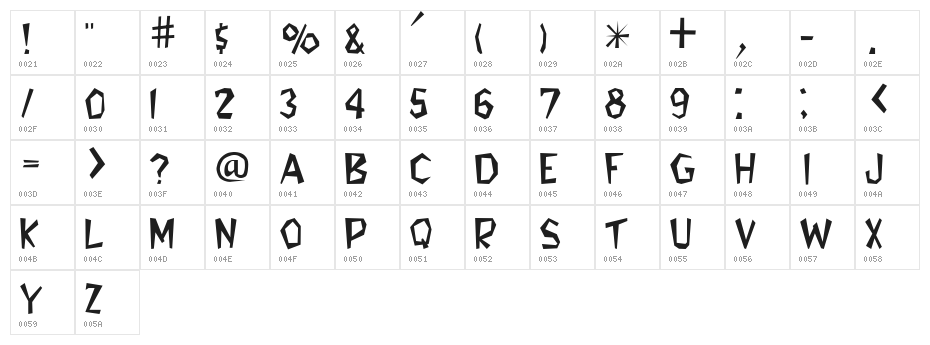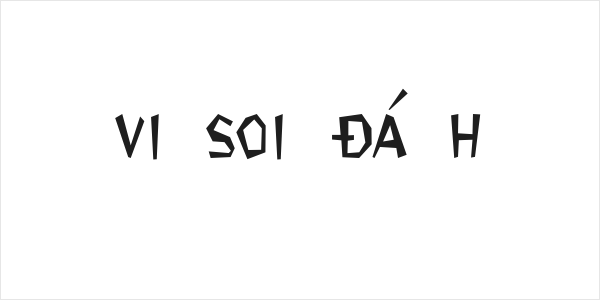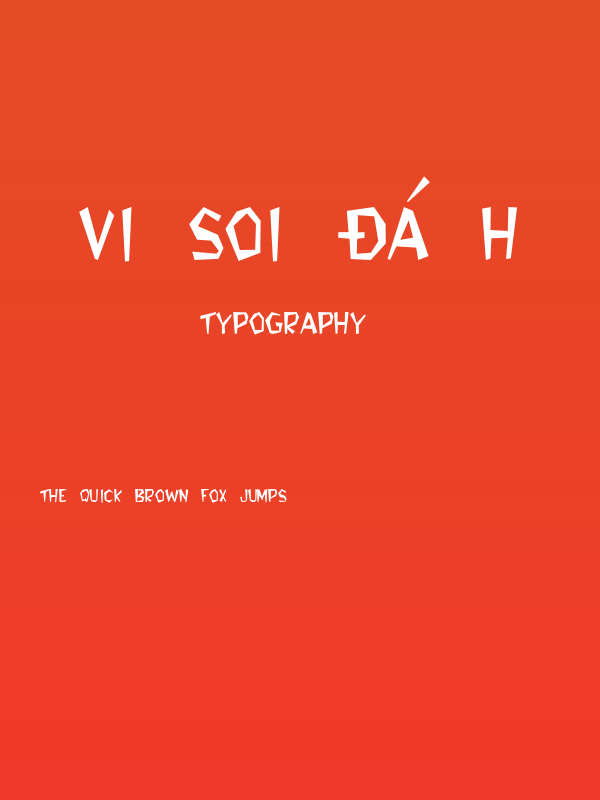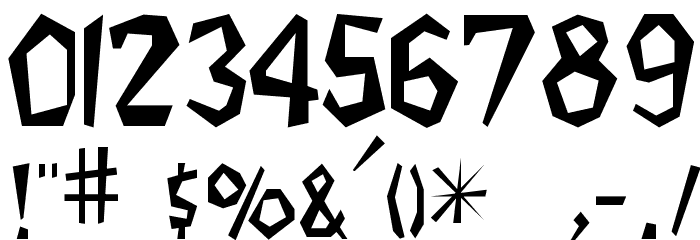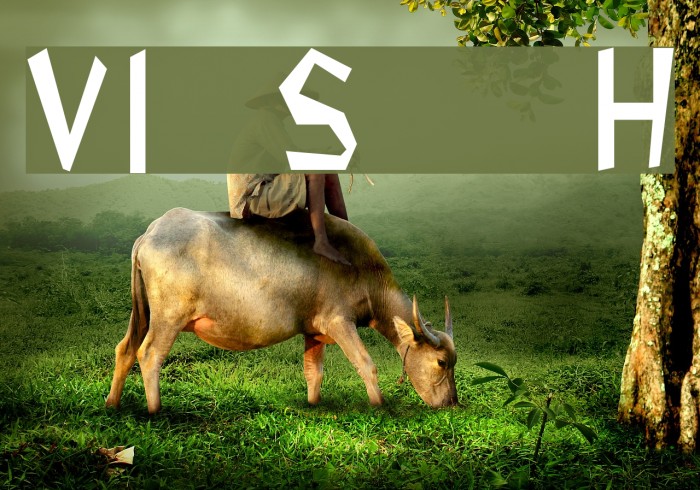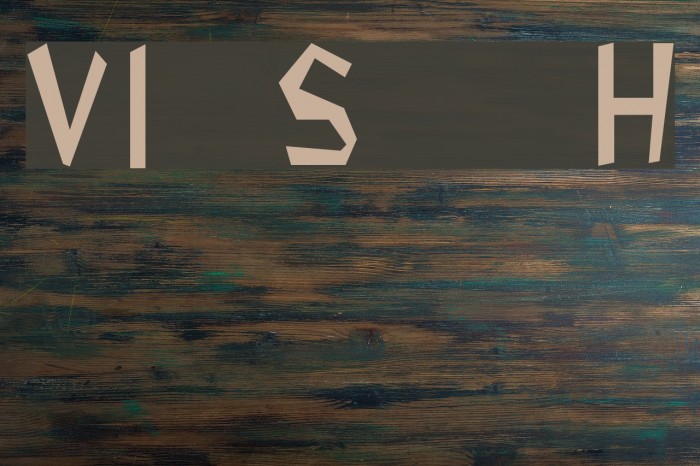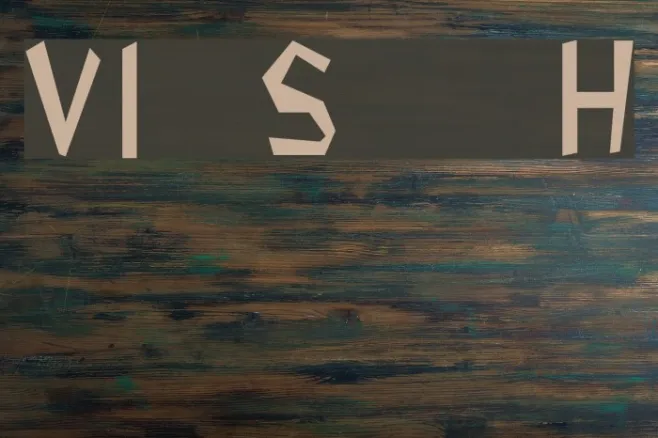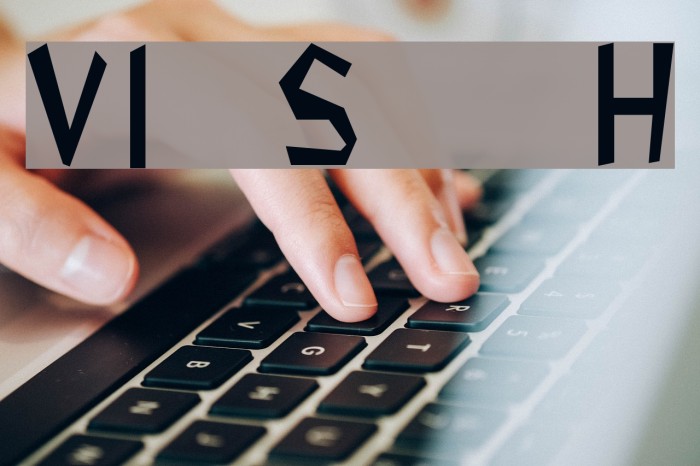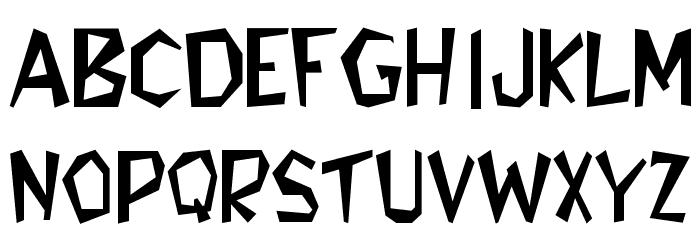
VI Soi Ðá H Font
VI Soi Ðá H Description
This font features a bold and angular design, characterized by sharp edges and a geometric structure. The uppercase letters are distinct with a slightly aggressive stance, making them stand out prominently. The lowercase letters maintain the same angular style, ensuring consistency throughout the typeface. The numbers are equally bold and geometric, providing a cohesive look across all characters. Special characters are designed to match the overall aesthetic, with a focus on maintaining the sharp, edgy appearance. This font is ideal for projects that require a strong, impactful visual presence.
| Proposed Projects | Ideal for posters, logos, video game titles, and branding that requires a bold statement. |